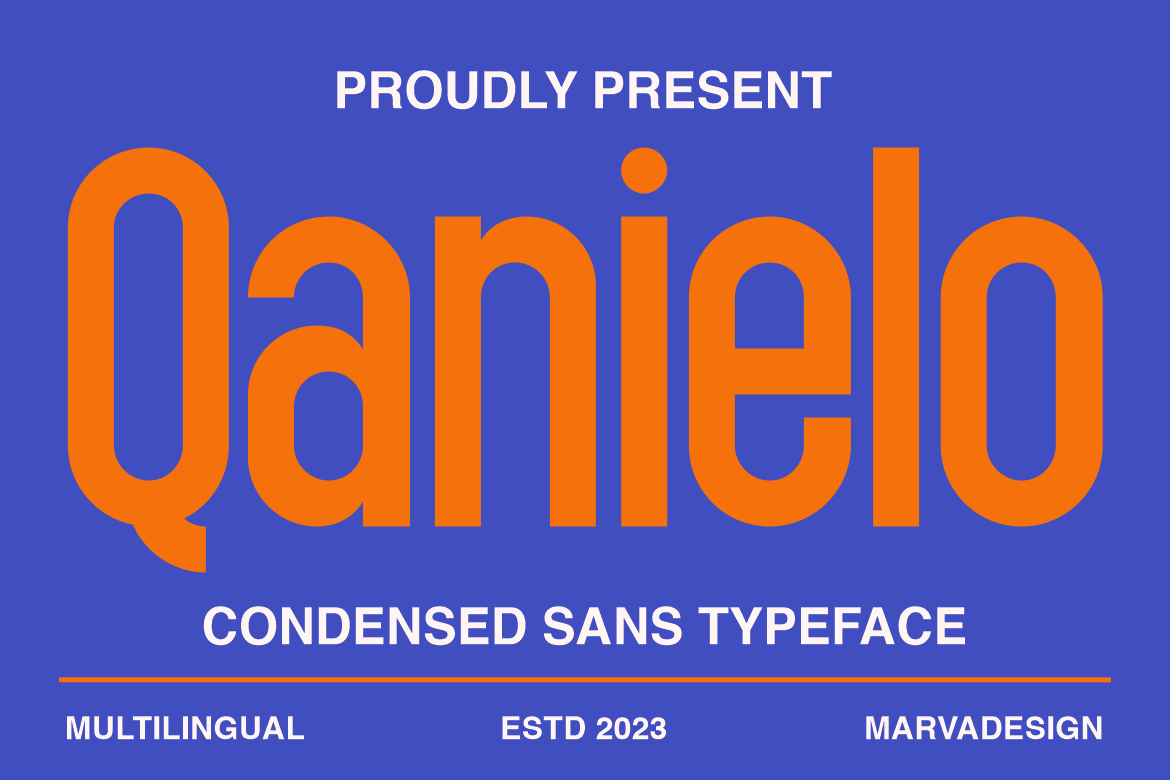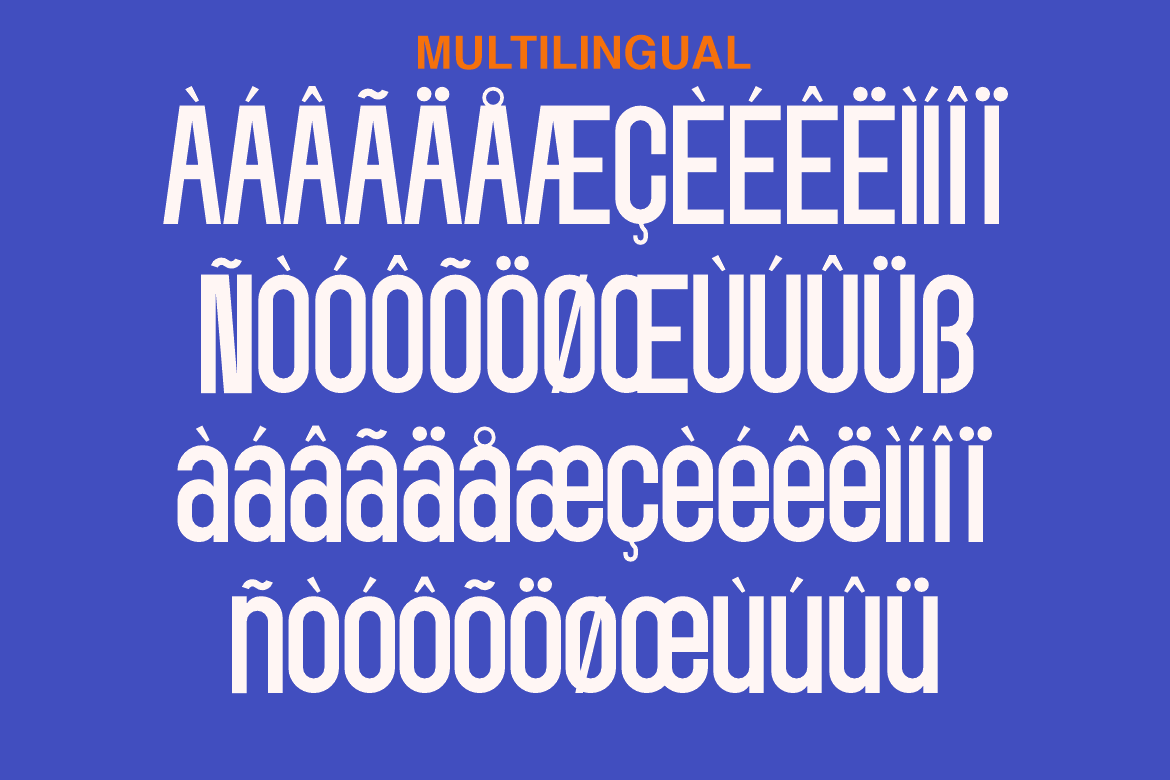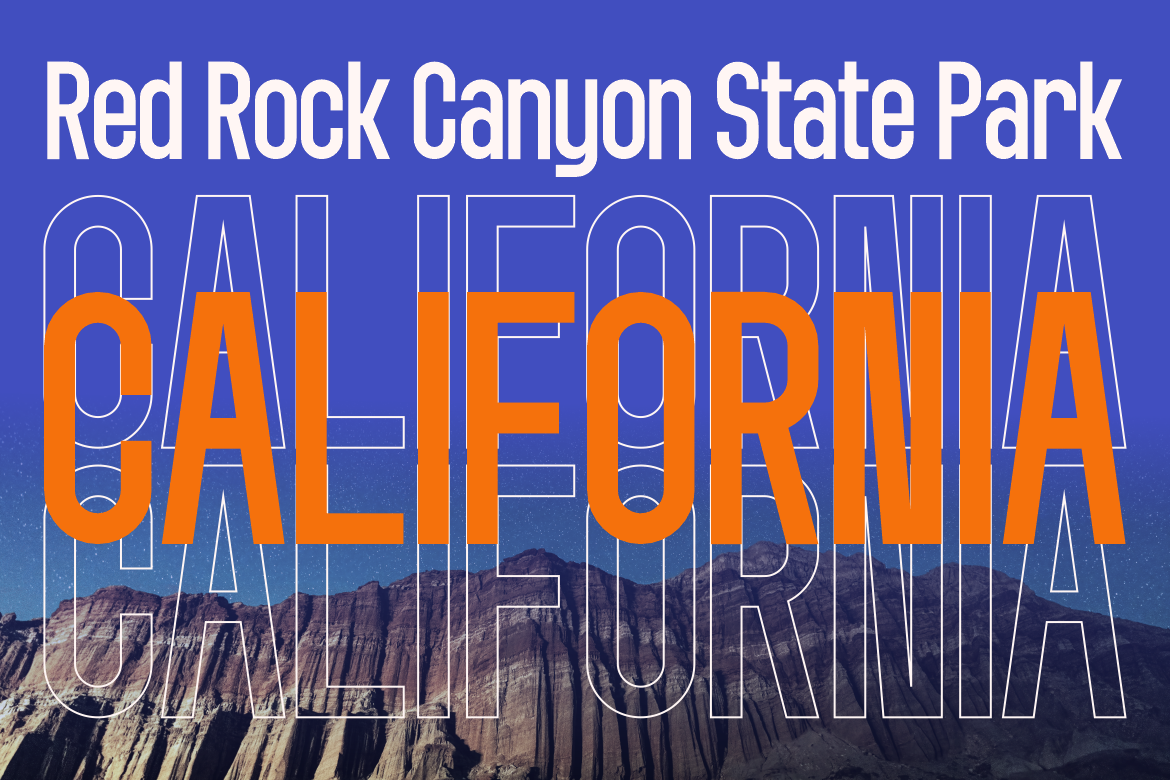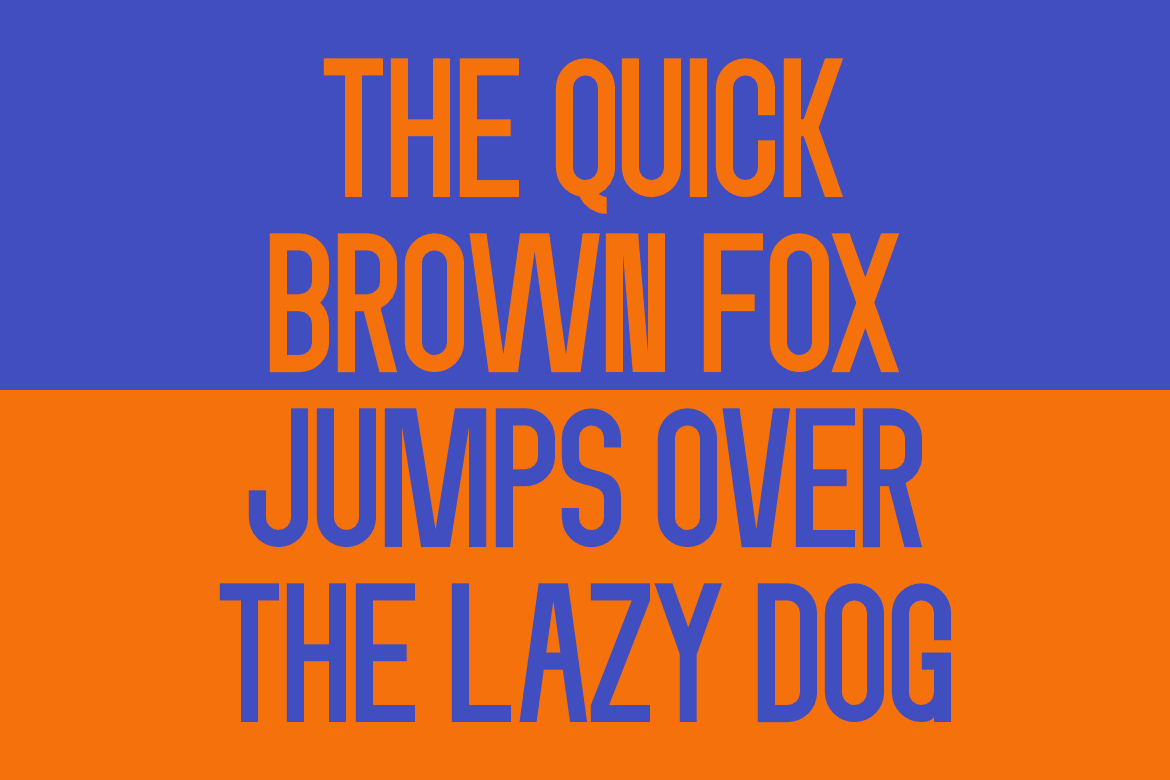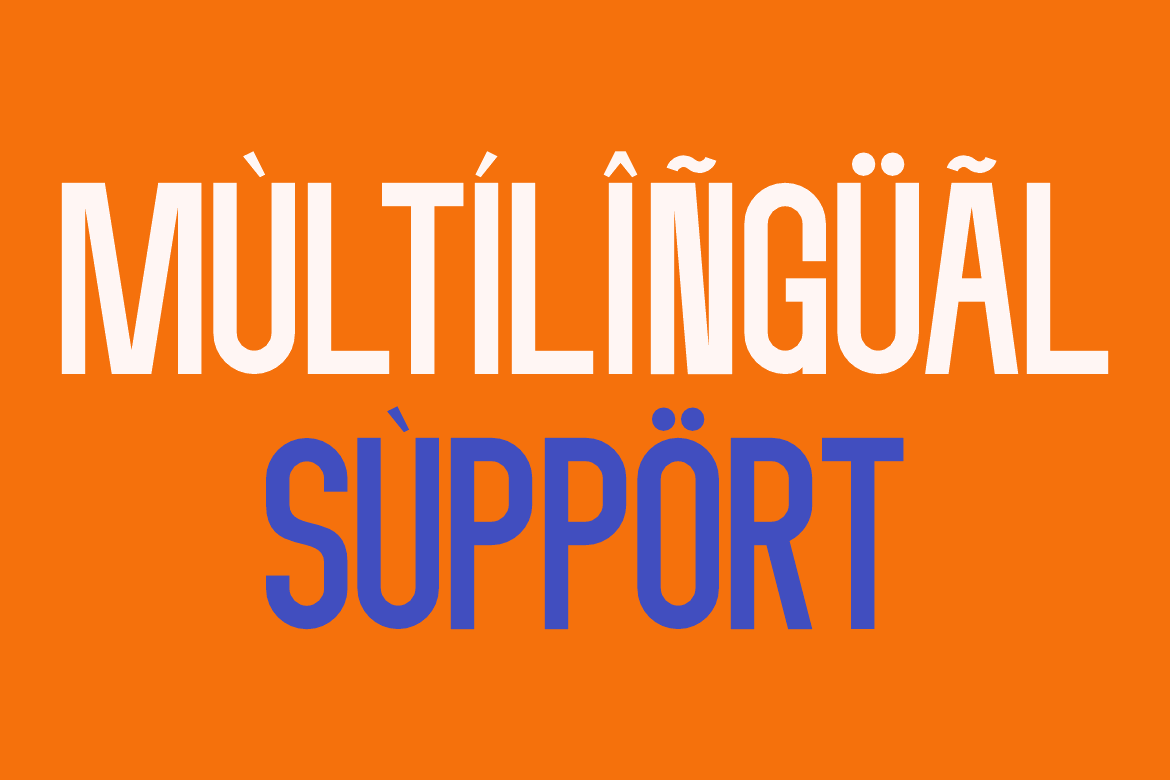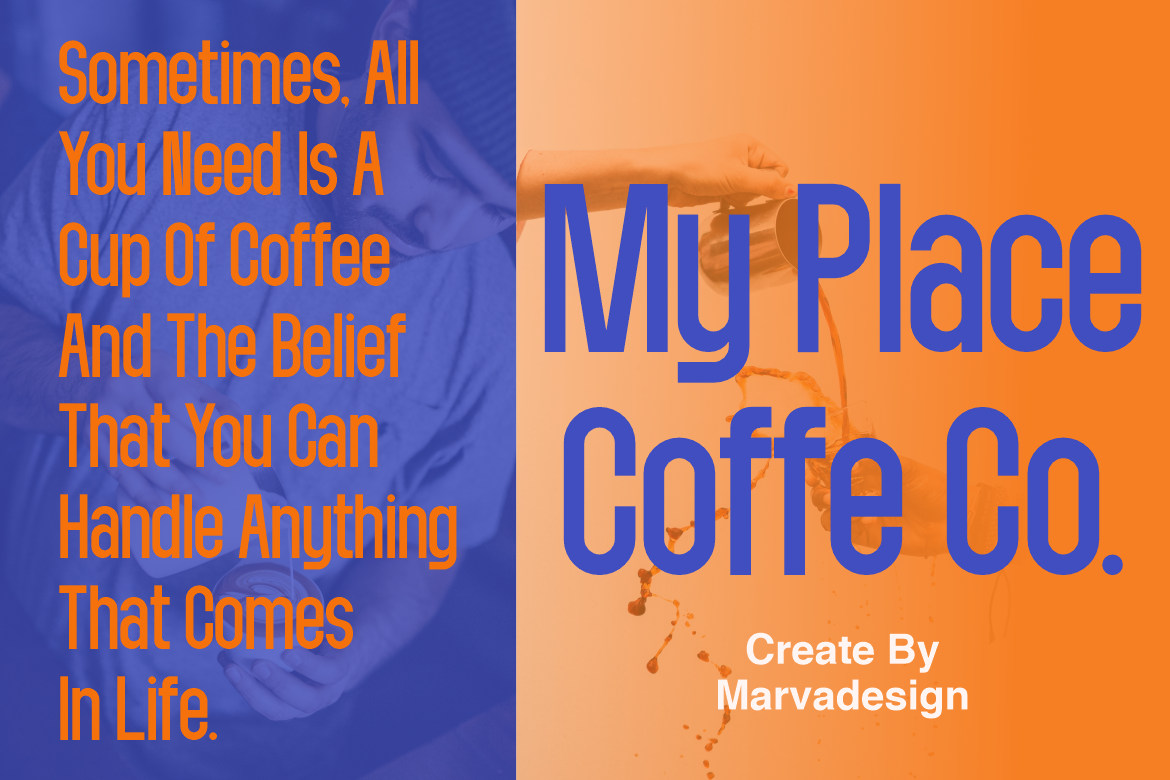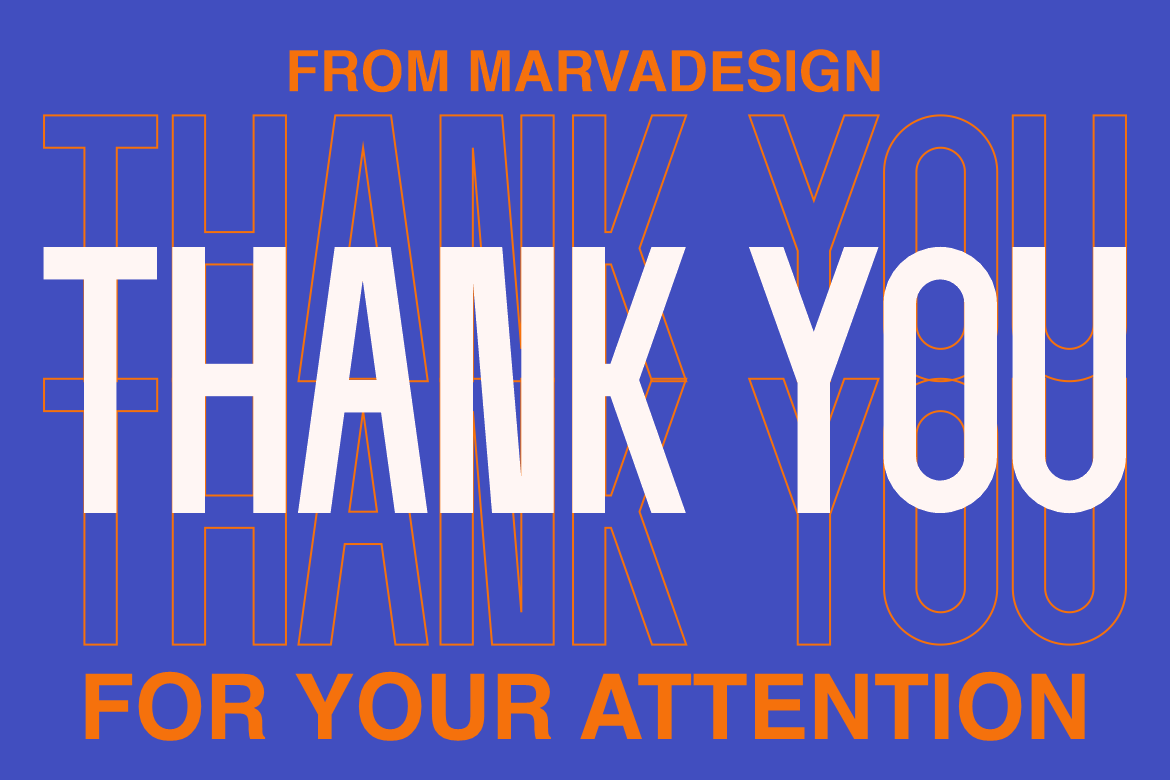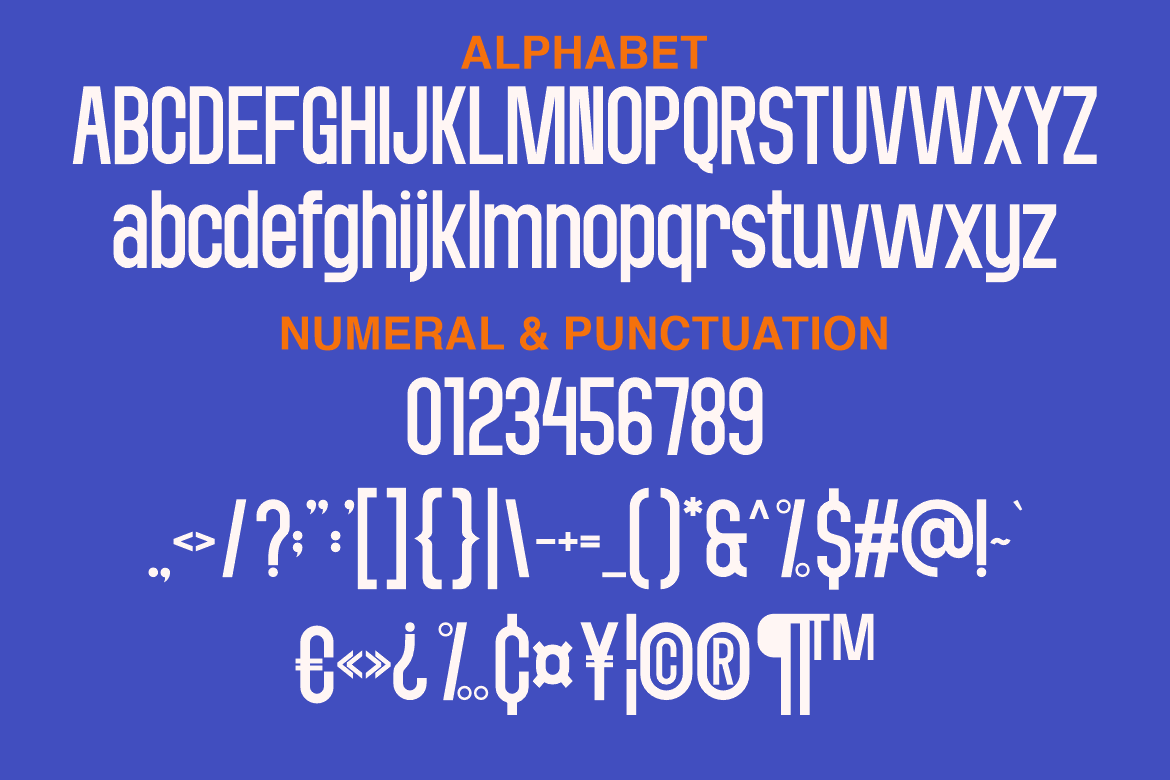
Qanielo Font
Introducing our new product **Qanielo Font** - Modern Font
**Qanielo Font** - Modern Font is a bold and authentic display font. The font is suitable for any branding project like logo, Template Design, Product and many more. outstanding in a wide range of contexts.
* Uppercase
* Lowercase
* Multilingual